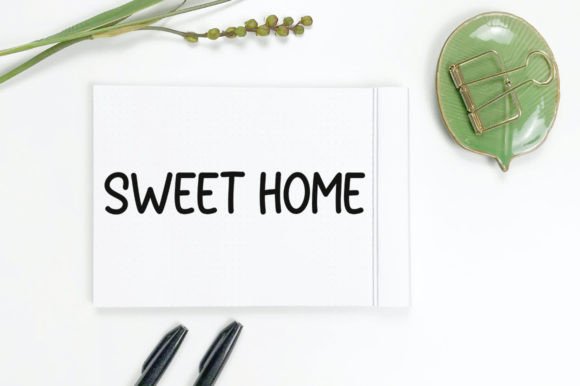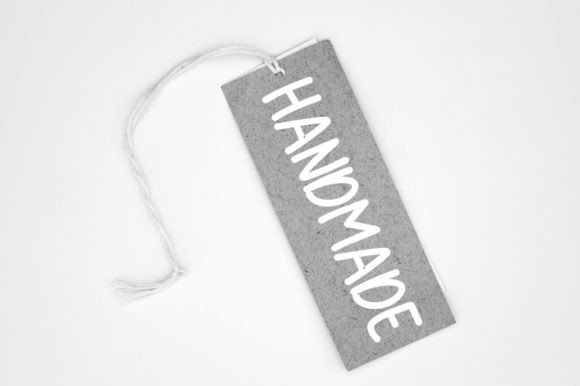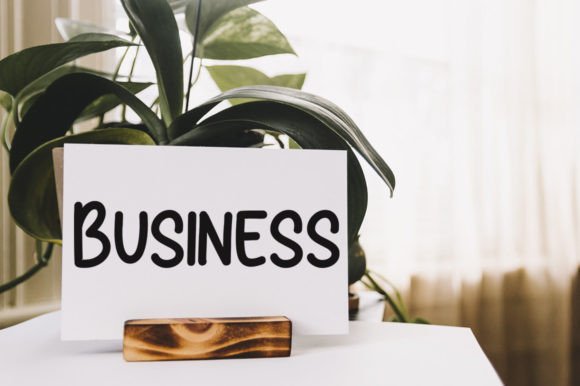
Hello November Font
Hello November Handwritten Font – Simple and Natural Typeface
The Hello November Handwritten Font is a charming and simple script typeface designed to bring natural elegance to your creative projects. With its casual handwritten strokes and versatile style, it adapts beautifully to both digital and print applications. Whether you are making greeting cards, headlines, or invitations, this font ensures your designs feel fresh, authentic, and stylish.
A Handwritten Script with Natural Style
The Hello November Handwritten Font blends smooth handwritten curves with balanced proportions. Its clean strokes make it easy to read while keeping a personal, authentic touch. Because of this balance, it is equally suitable for professional branding and casual craft projects.
Perfect for Greeting Cards and Headlines
One of the best uses of the Hello November Handwritten Font is in greeting cards and stationery. Its natural flow adds warmth to thank-you notes, wedding invitations, and seasonal cards. At the same time, it works well for posters, product labels, and headlines, making it a versatile choice for designers who want elegance with simplicity.
The Hello November Handwritten Font adapts seamlessly to a wide variety of projects. From branding and product packaging to social media graphics and classroom materials, it brings a natural handwritten charm. Its simplicity ensures it feels modern and stylish without being overwhelming.
Why Designers Love Hello November Font
Designers love the Hello November HandwrittenFont because it combines clean minimalism with warmth. Its simple strokes make it versatile enough for everyday projects, while its natural handwritten look gives designs a personal edge. This dual quality makes it a must-have in any creative toolkit.
In summary, the Hello November HandwrittenFont is a simple, natural, and versatile script typeface. With its handwritten flow, quick installation, and wide usability, it is perfect for greeting cards, headlines, posters, and branding. Don’t miss the chance to download Hello November HandwrittenFont and bring natural elegance to your next design project.